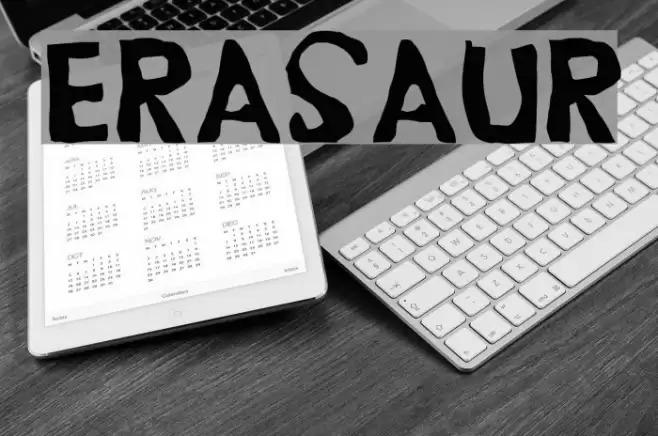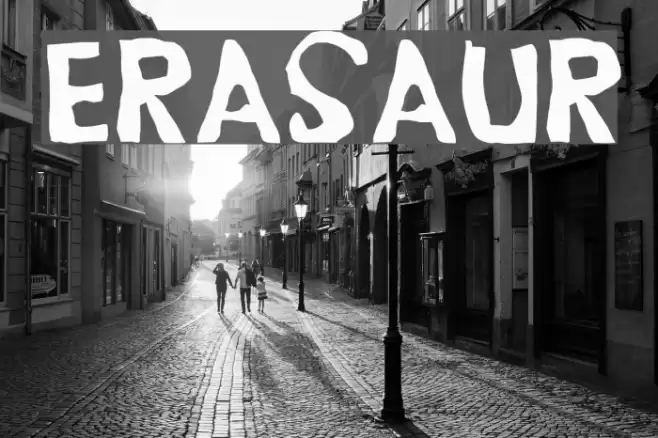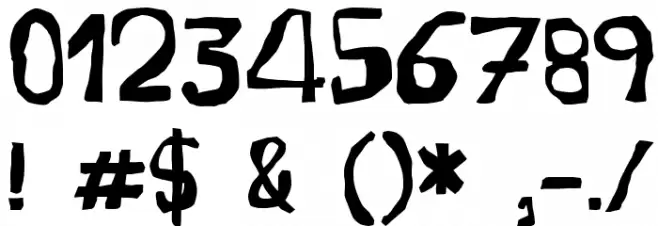
Erasaur Font
Erasaur Description
This font features a playful and bold style with irregular, hand-drawn characteristics. The letters are unevenly shaped, giving it a whimsical and artistic appearance. The strokes are thick and vary in width, adding to its dynamic and energetic feel. The overall design is reminiscent of a casual, handwritten script, yet maintains a strong presence due to its boldness. The numbers and special characters follow the same playful and bold aesthetic, making it suitable for creative and informal projects.
A playful, bold, and hand-drawn style with irregular shapes and thick strokes from Distorted Eroded fonts.
- Proposed Projects: Ideal for children's books, playful branding, posters, and creative invitations.
- Overall Style: Playful, Artistic, Hand-drawn
- Use Case: Headlines, Posters, Creative Projects